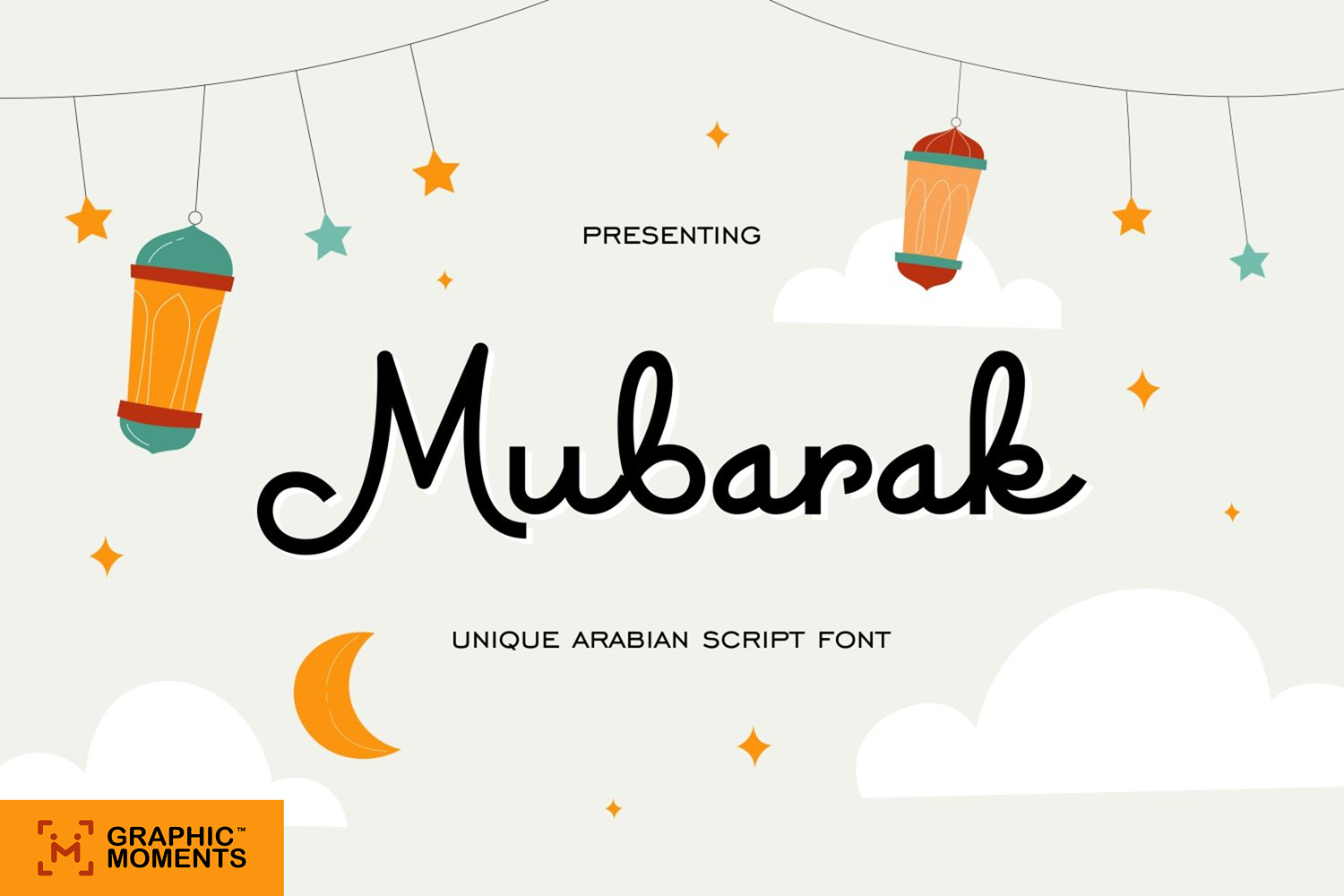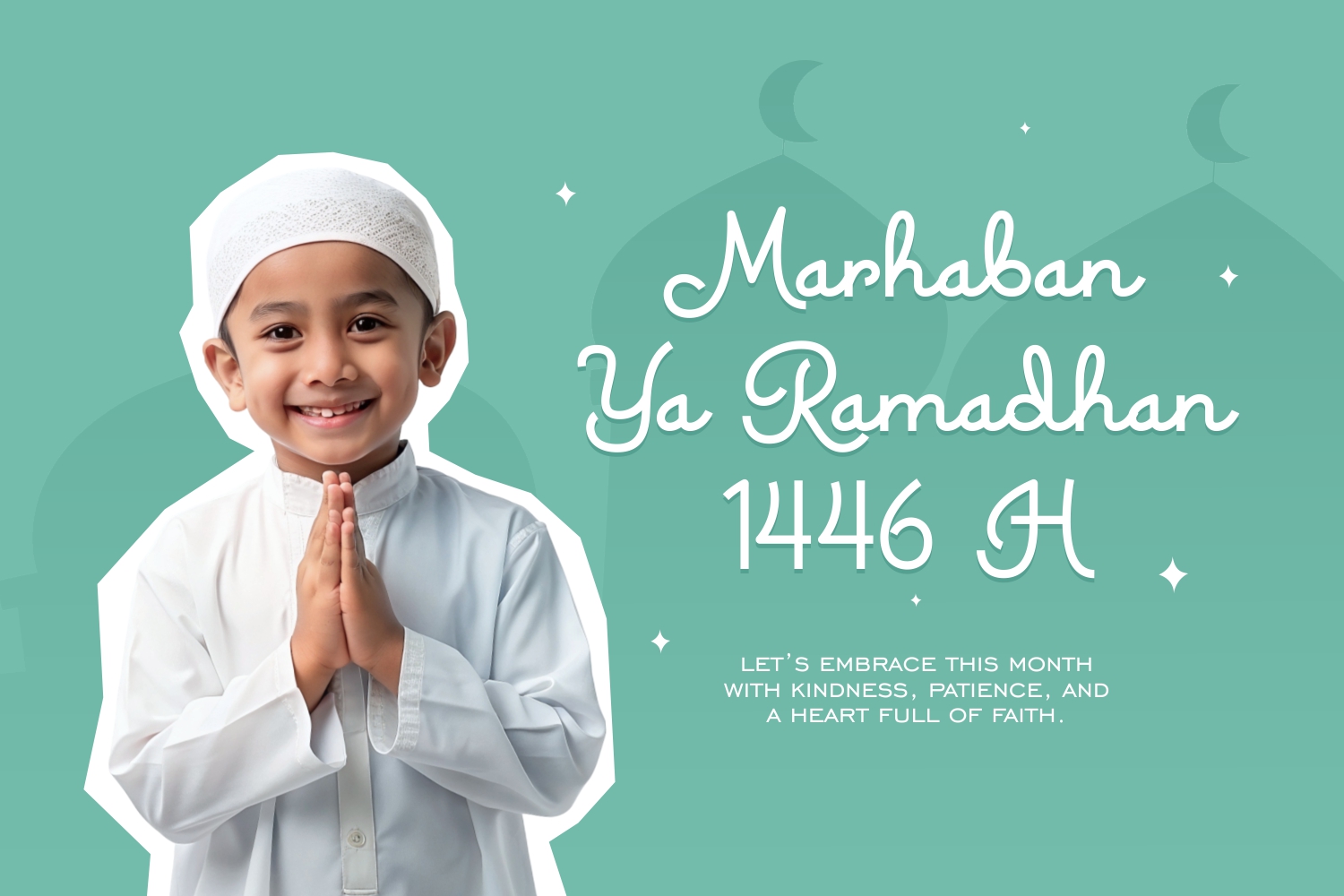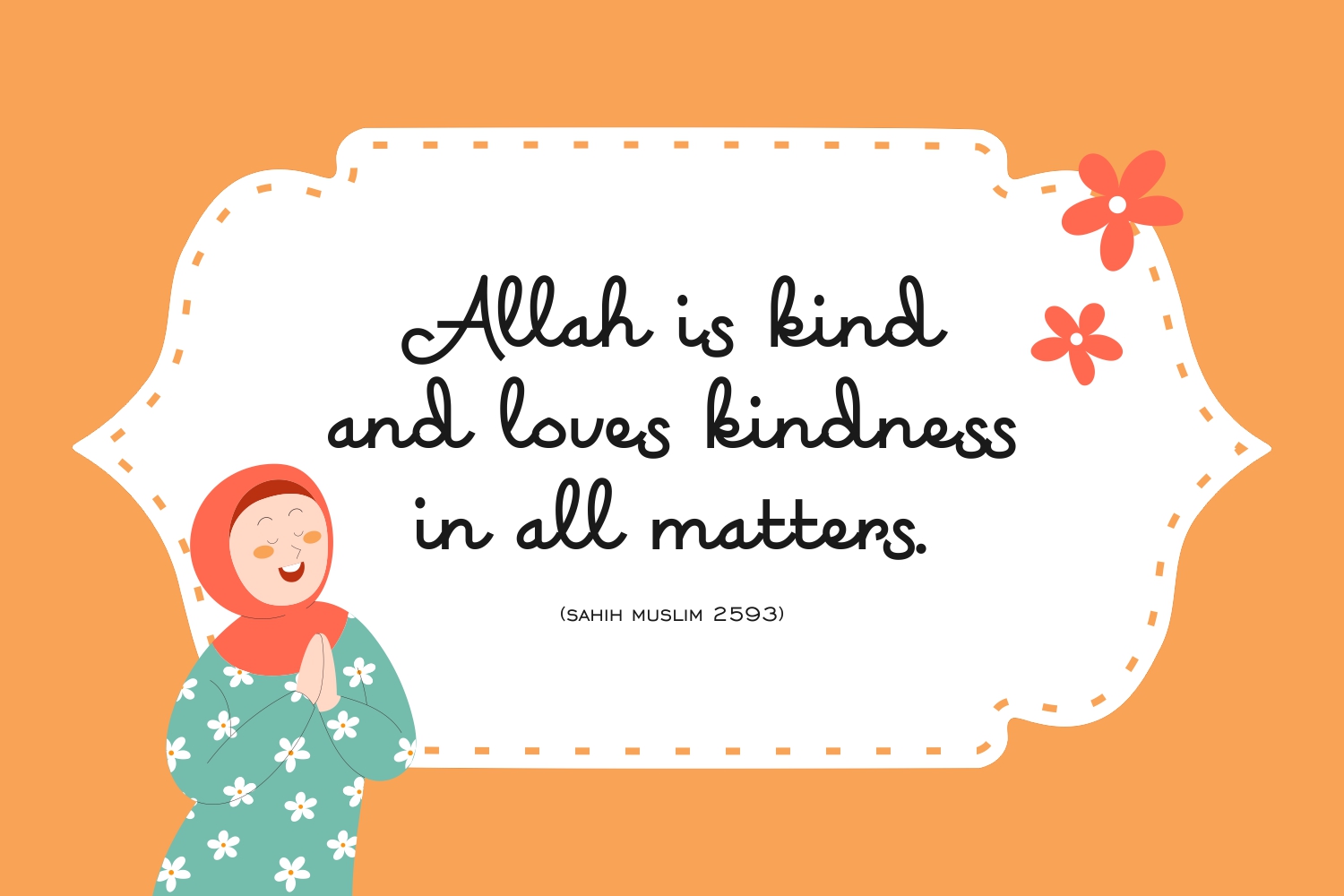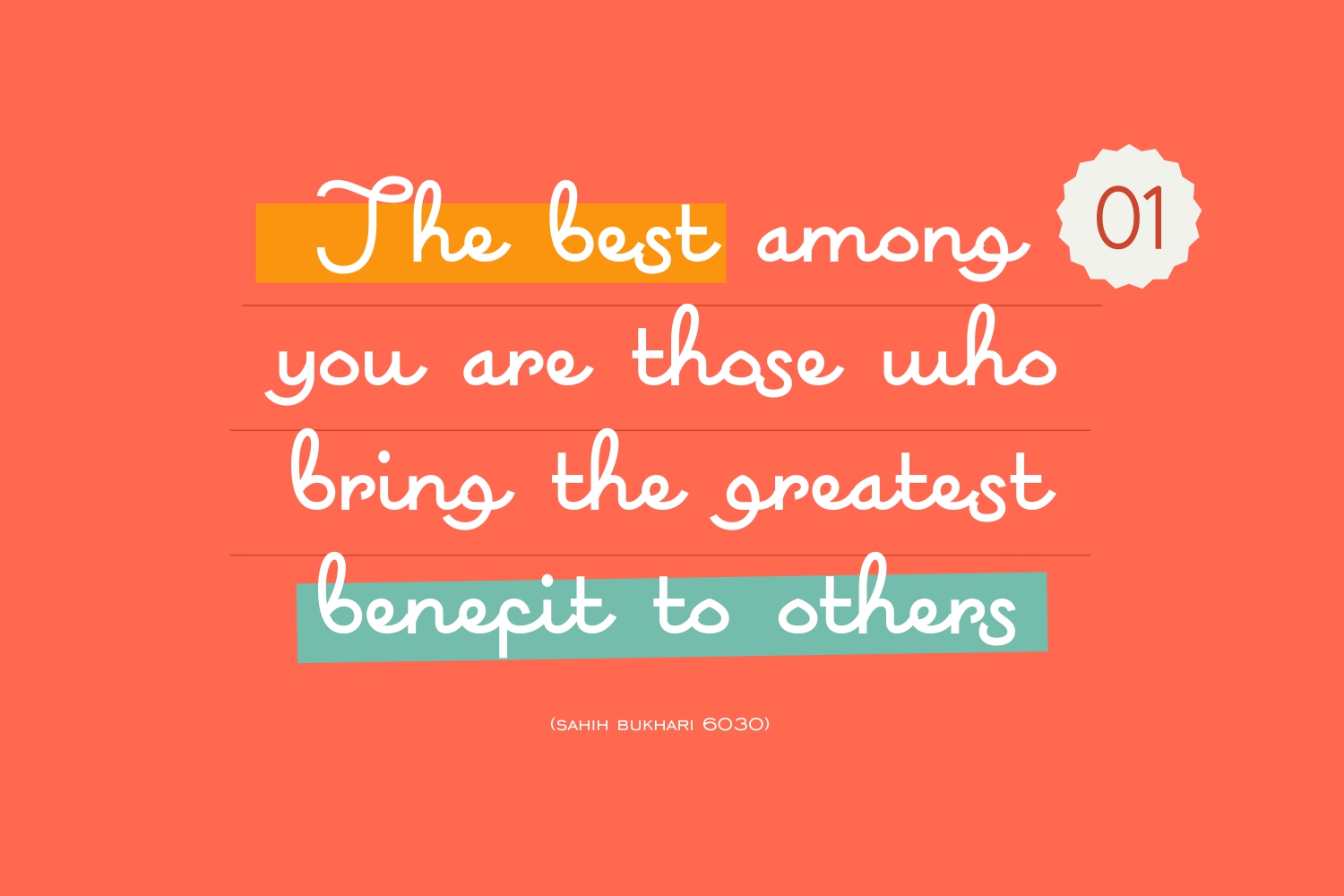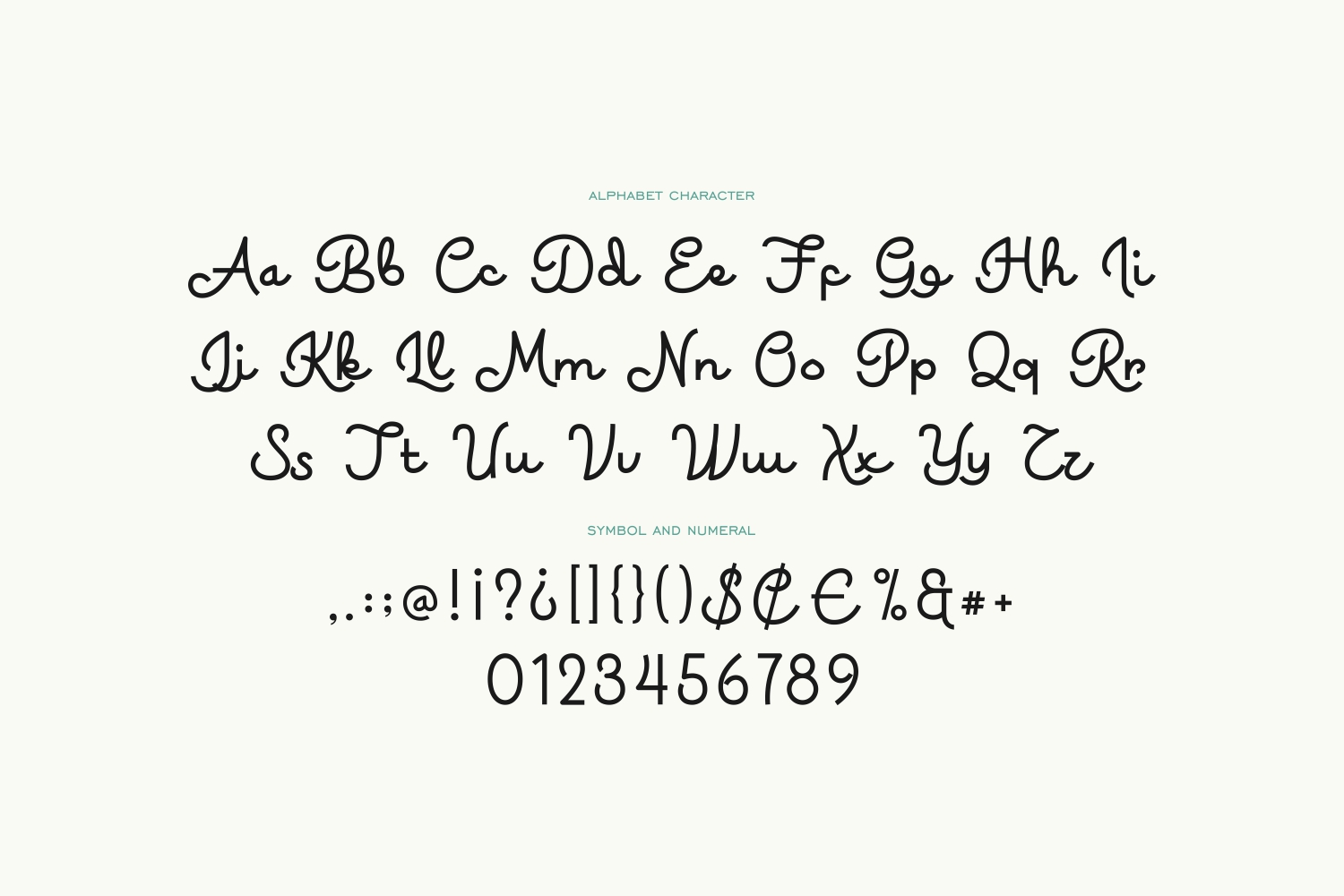
Mubarak is a unique Arabian script font that blends elegance with a warm, playful touch. Its smooth, flowing curves and handwritten feel make it perfect for festive greetings, children’s books, quotes, and designs that need a friendly yet refined atmosphere. Mubarak brings a sense of joy and charm, making your message look heartfelt and approachable.
With its versatile style, Mubarak is ideal for Ramadan and Eid designs, social media posts, posters, packaging, and educational projects. The combination of script softness and Arabian-inspired details creates a distinctive personality that adds both cultural richness and modern appeal to your creative works.
Mubarak